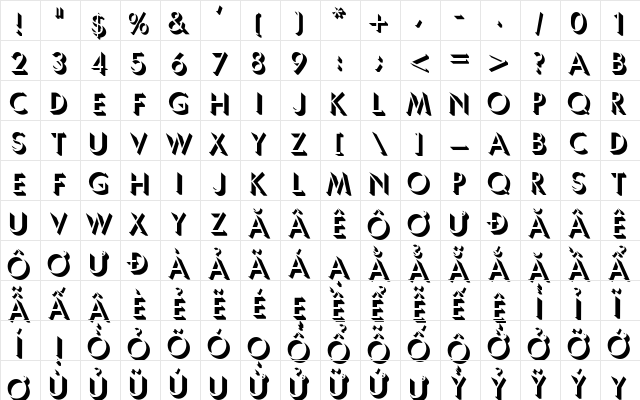
.Vn3DH Normal
Design Context for .Vn3DH Typeface
.Vn3DH is a composed and adaptable typeface that performs quietly and consistently across a wide range of design contexts.